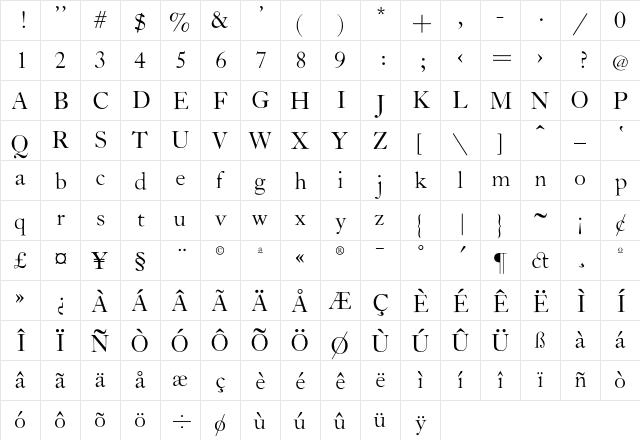
CaslonL Regular Font Preview
CaslonL Regular
Design Context for CaslonL Typeface
CaslonL takes a measured approach to typography — its balanced proportions and neutral character make it a reliable workhorse for both digital and print work.